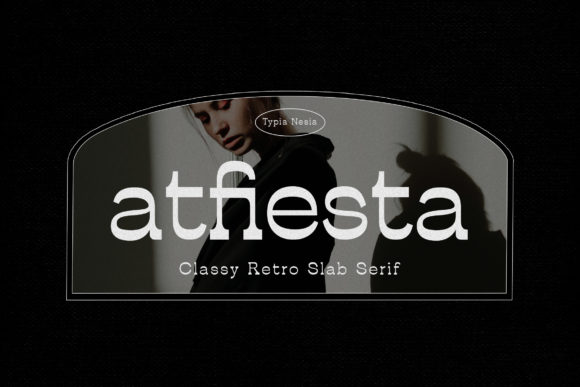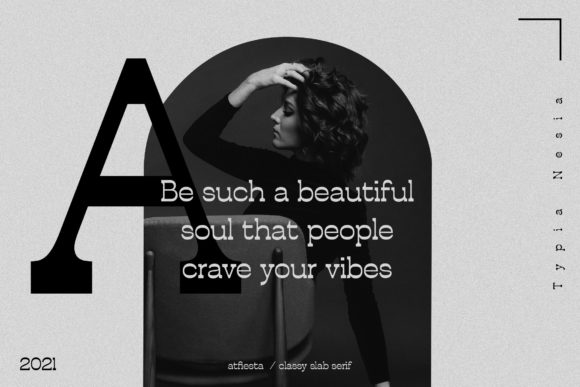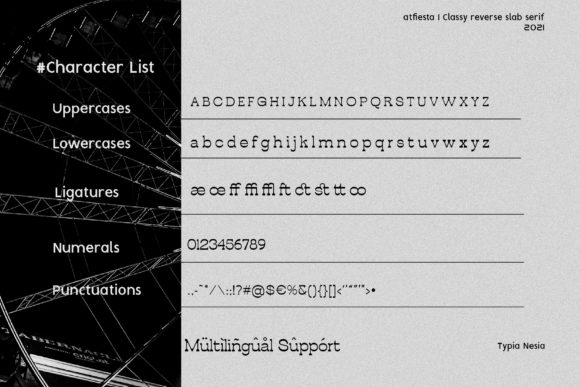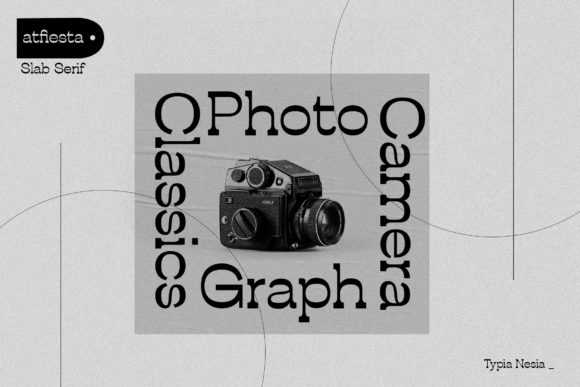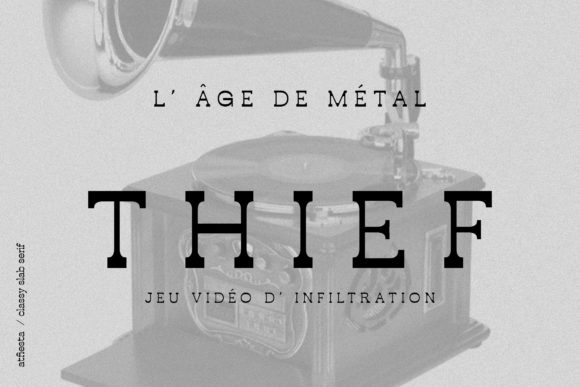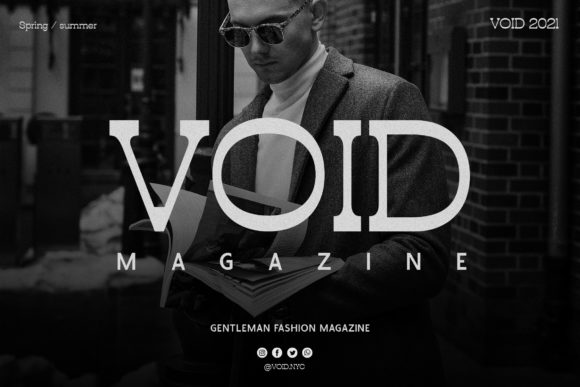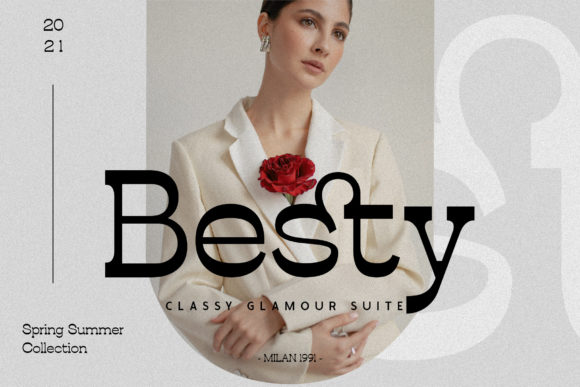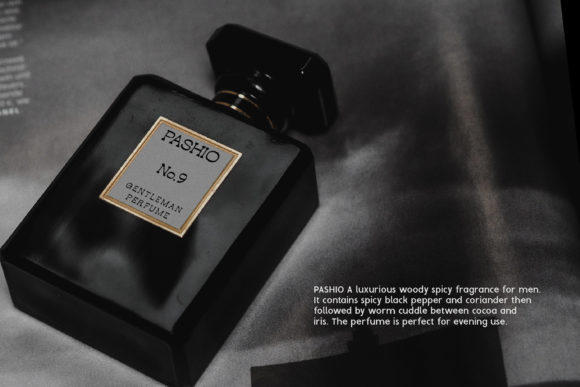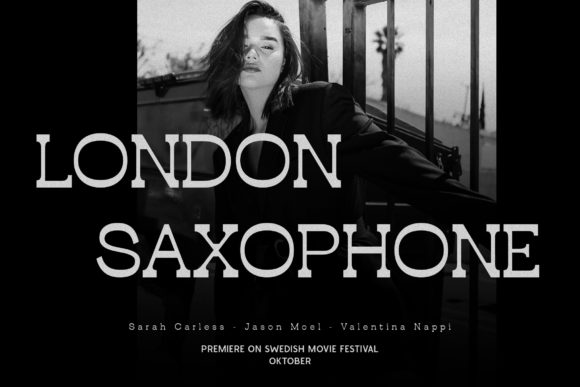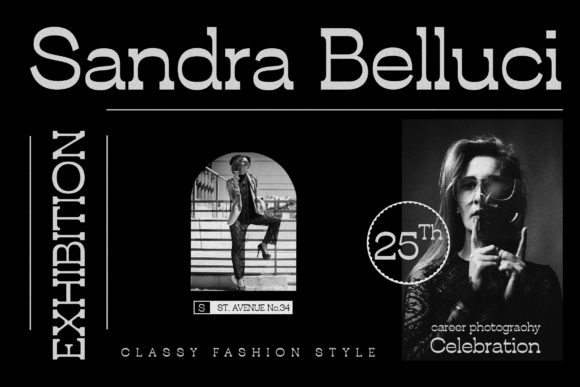
Atfiesta
Atfiesta: A Cool and Classy Retro-Styled Slab Serif Font
Atfiesta is a distinctive slab serif font that combines a cool aesthetic with a classy, retro style. This versatile typeface will be a wonderful asset to your font library, as it has the potential to enhance any creation.
Key Features of Atfiesta
• Cool Design: Features trendy letterforms that resonate with modern and retro design trends.
• Classy Appearance: Offers a refined look suitable for various applications.
• Slab Serif Structure: Maintains the characteristic thick, rectangular serifs typical of slab serif fonts.
• Versatile Application: Ideal for a wide range of projects, from branding to crafts.
• Authentic Touch: Adds a unique charm to any creation.
Ideal Uses for Atfiesta
Atfiesta’s unique characteristics make it particularly well-suited for:
• Logo designs and branding materials
• Posters and promotional content
• Greeting cards and invitations
• Magazine layouts and editorial designs
• Craft projects that require a stylish touch
When incorporating Atfiesta into your designs, consider the following tips:
• Use for both headlines and short blocks of text to showcase its cool and classy style.
• Experiment with different sizes to highlight the font’s unique details.
• Pair with simpler sans-serif fonts for body text to create contrast.
• Utilize its versatility across various themes in your projects.
Atfiesta is an excellent choice for designers looking to add a cool and classy retro-styled slab serif font to their typographic toolkit. Its ability to enhance various design projects makes it stand out in typography. Whether you’re working on logo designs, creating layouts for vintage-themed projects, or developing content that requires a touch of charm, Atfiesta offers the perfect blend of style and versatility.
Add Atfiesta confidently to your favorite creations and let yourself be amazed by the outcomes it generates. From eye-catching posters to engaging branding elements, this font provides the tools to create impactful typography that resonates with audiences seeking a stylish aesthetic. It’s adaptable enough for various contexts, from vintage-inspired designs to playful layouts.
If you’re aiming for a more magical atmosphere, Atfiesta can easily adapt. Its flexibility allows it to shine in both rustic projects and holiday-themed designs. For those looking to add a touch of nostalgia with a modern feel, this font can even complement vintage Christmas-inspired creations.